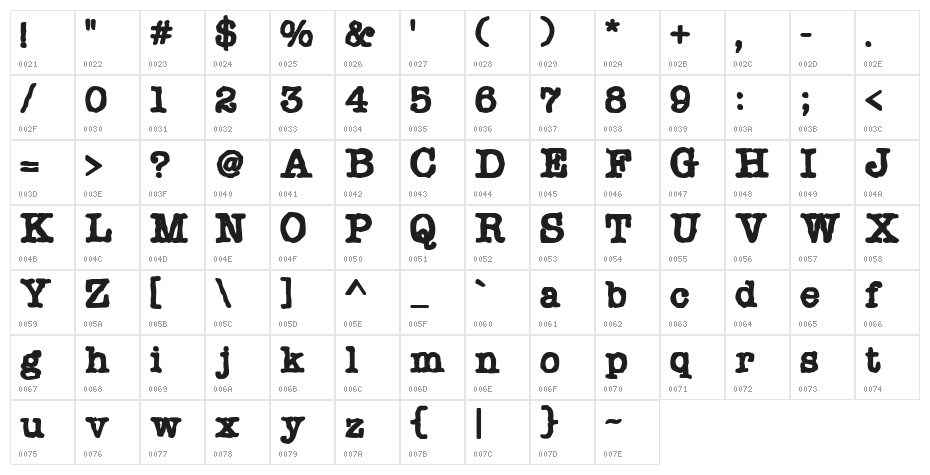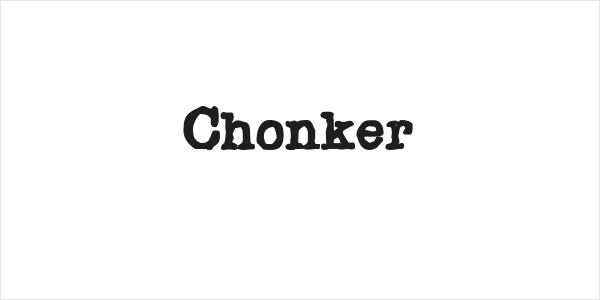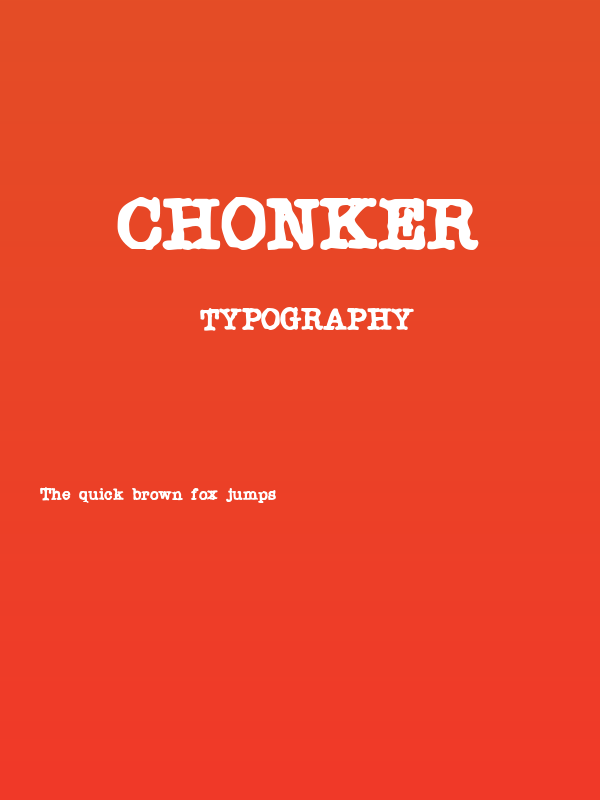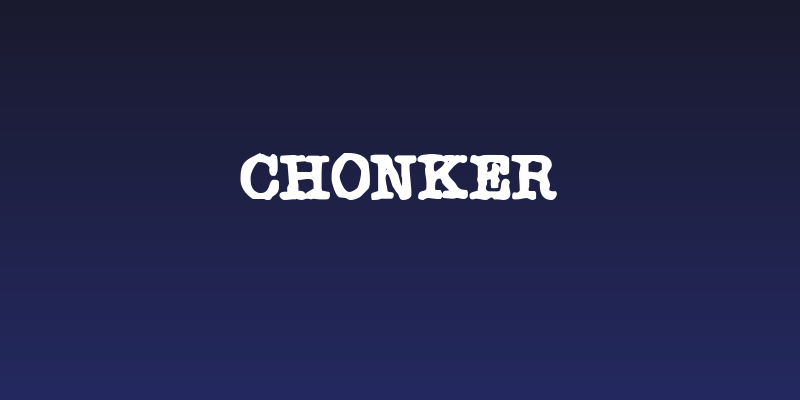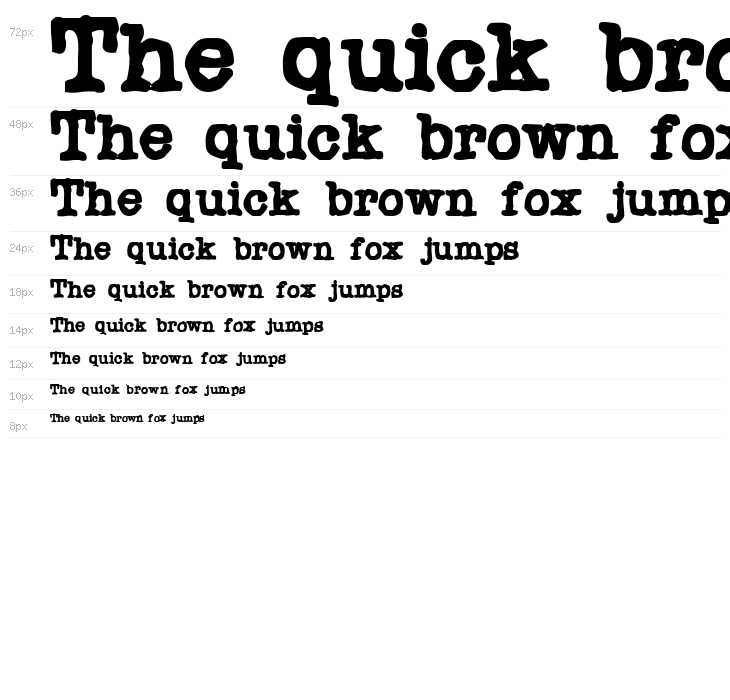
Chonker Font
Chonker Description
This font features a bold and playful design with thick, rounded strokes that give it a chunky appearance. The characters are slightly irregular, adding a whimsical and informal touch. The uppercase and lowercase letters maintain a consistent weight, contributing to a cohesive look. The numbers and special characters follow the same style, ensuring uniformity across all elements. This font's unique style makes it stand out, with its exaggerated forms and strong presence. It's ideal for projects that require a fun and eye-catching typeface.
| Proposed Projects | Perfect for children's books, playful branding, posters, and creative projects that require a fun and bold typeface. |